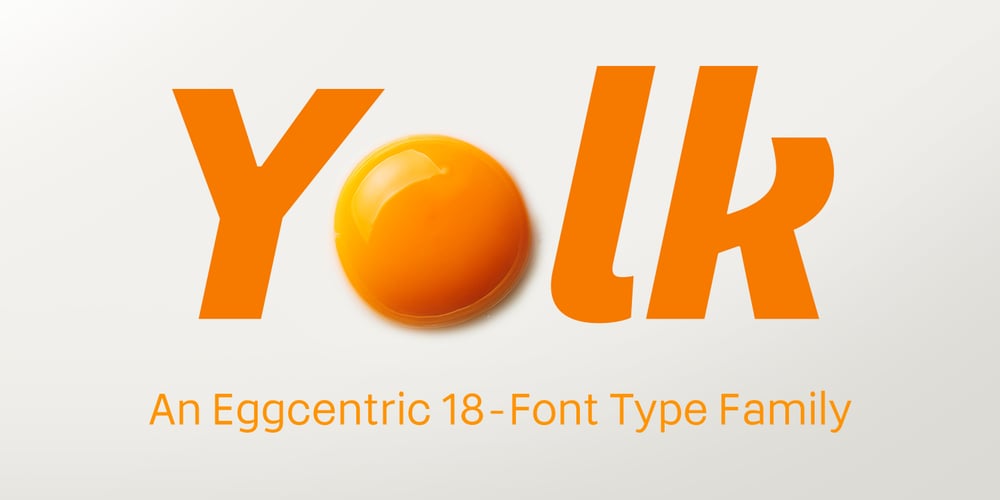
Yolk Font Family was designed by Paulo Goode and published by Monotype. Yolk contains 18 styles and family package options. Yolk is an Eggcentric Sans Serif Typeface consisting of nine weights in both roman and italic. Essentially, this is a geometric sans typeface that has been inspired by the shape and proportions of an egg. With its bottom-heavy glyphs, Yolk has an unusual personality – it’s not too awkward to be off-putting, and it’s not too uniform to be associated with the myriad of generic geometric sans fonts that are available. Yolk has a distinctive presence in its upright form, while the italics exude a more flamboyant nature. When combined, your typographic results will be pleasing and perhaps a little quirky too. This 18-font type family achieves a good balance of personality, versatility, and usability. Small Caps are available at the click of a button, then add Stylistic Set 1 to achieve Petite Caps. The petite caps harmonise with the regular lowercase forms, so that you can create unicase-style typography too. All Latin-based languages are covered within the 1000+ glyphs of each Yolk font. Key Features: • 18 font family – 9 weights in Roman and Italic • Small Caps, Petite Caps, with Proportional, Old Style, and Small Cap figures, plus Fractions, Numerators, Denominators, Superiors, and Inferiors • Full European character set (Latin Extended) • 1,000+ glyphs per font.